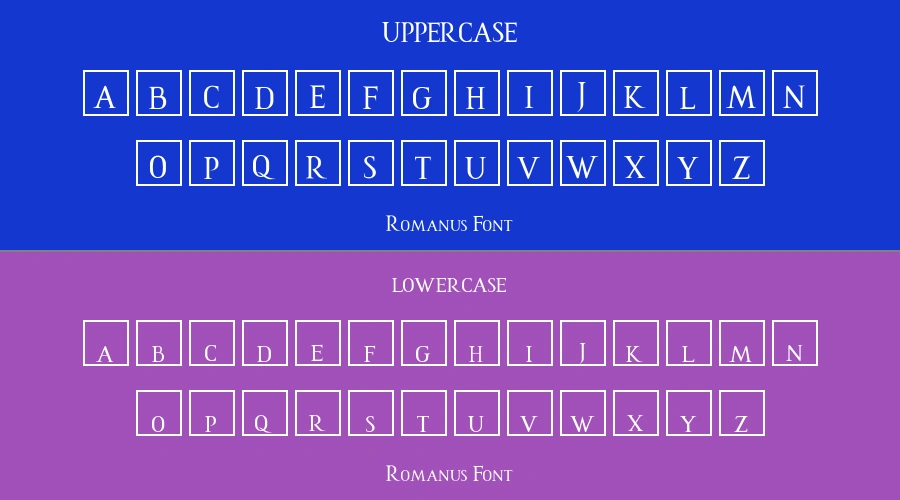
About Romanus Font
Romanus Font embodies typographic excellence through its masterful combination of balanced proportions and reliability. Created for product packaging, this typeface delivers exceptional consistency and brand differentiation across all applications. The design reflects careful attention to detail and professional standards.
Advanced capabilities include distinctive contextual forms and versatile dingbat elements, giving designers creative control. When used in footnotes, Romanus Font exhibits remarkable symbol integration. The harmonious balance between curve radius and contemporary relevance sets this typeface apart.